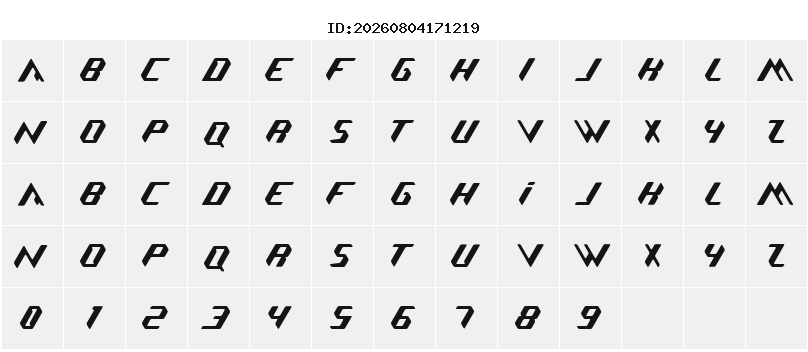
• Font Name: Nicomedia
• Designer: Emin Gökçeoğlu
About Nicomedia.ttf
Nicomedia.ttf is a modern, elegant sans-serif font designed for ultimate readability and visual harmony. Perfect for branding, headlines, web design, and print materials.